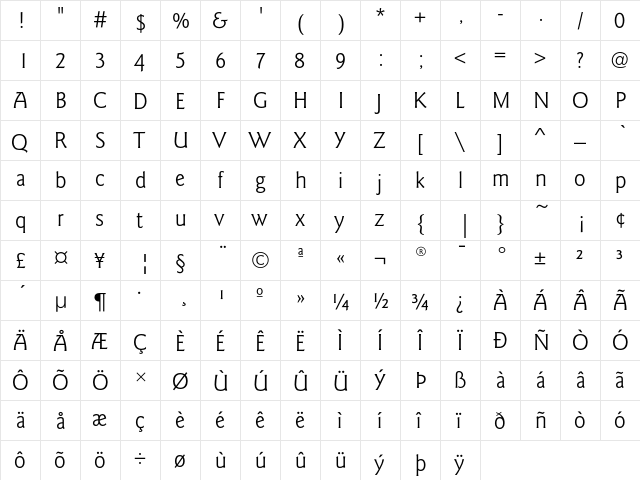
GoudySansEF Book
Design Context for GoudySansEF Typeface
GoudySansEF takes a measured approach to typography — its balanced proportions and neutral character make it a reliable workhorse for both digital and print work.